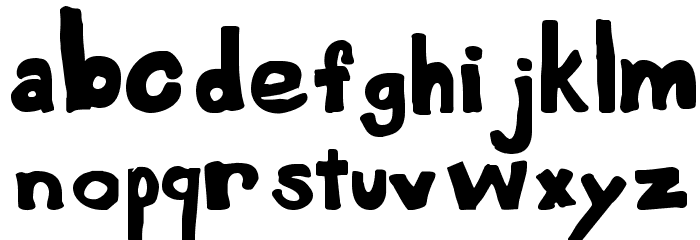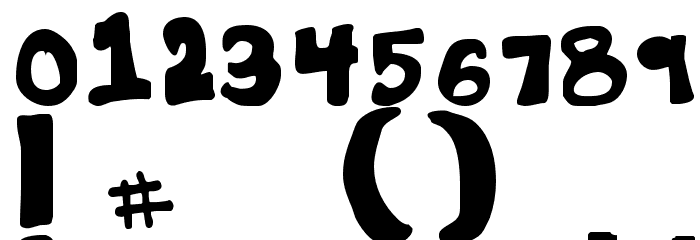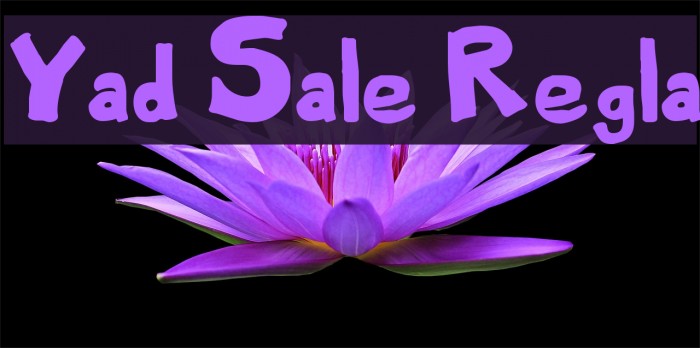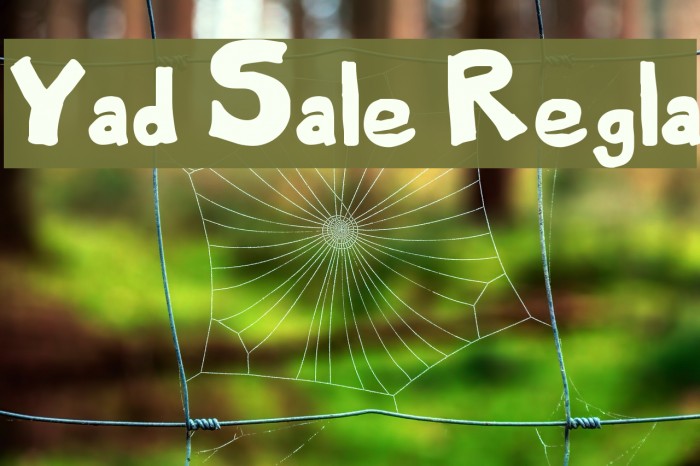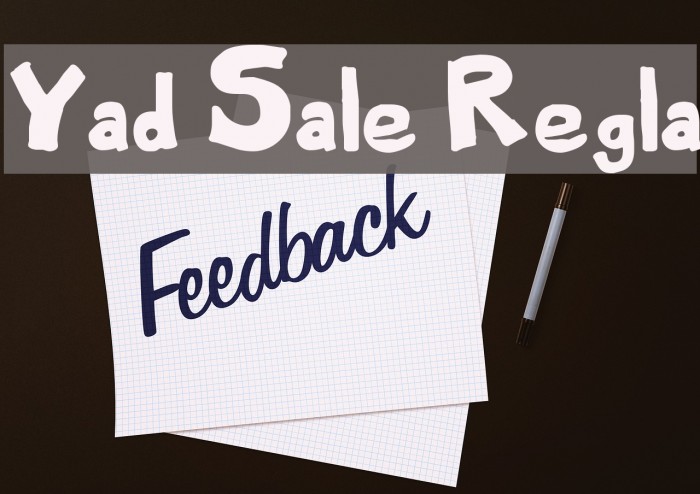
Yard Sale Regular Font
This font exudes a playful and casual vibe, characterized by its bold and slightly irregular letterforms. The strokes are thick and rounded, giving it a friendly and approachable appearance. The uppercase and lowercase letters maintain a consistent style, with a hand-drawn feel that adds a touch of whimsy. The numbers and special characters follow the same design principles, ensuring uniformity across all glyphs. This font is perfect for projects that require a fun and informal touch, such as children's books, posters, or event flyers. Its unique style makes it stand out, while still being legible and easy to read.
A playful, bold font with a hand-drawn, casual style.
- Proposed Projects: Ideal for children's books, playful posters, event flyers, and casual branding.
- Overall Style: Casual, Playful